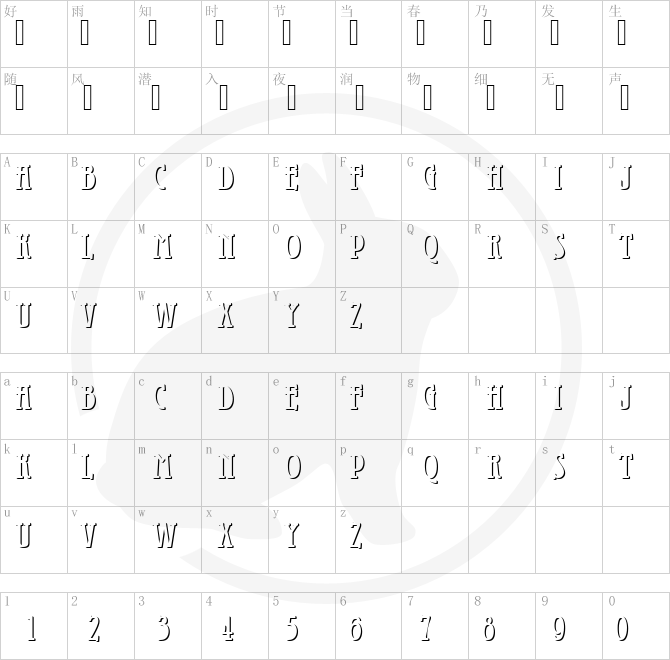
GaladrielOnlShaD.ttf is a very beautiful artistic font, GaladrielOnlShaD.ttf is widely used in the design and printing of various books and pictures,GaladrielOnlShaD.ttf has a strong visual impact,GaladrielOnlShaD.ttf is a commonly used font in newspapers, magazines and books, and is used in posters, e-commerce Poster design, store design, logo design, font design and other fields.GaladrielOnlShaD.